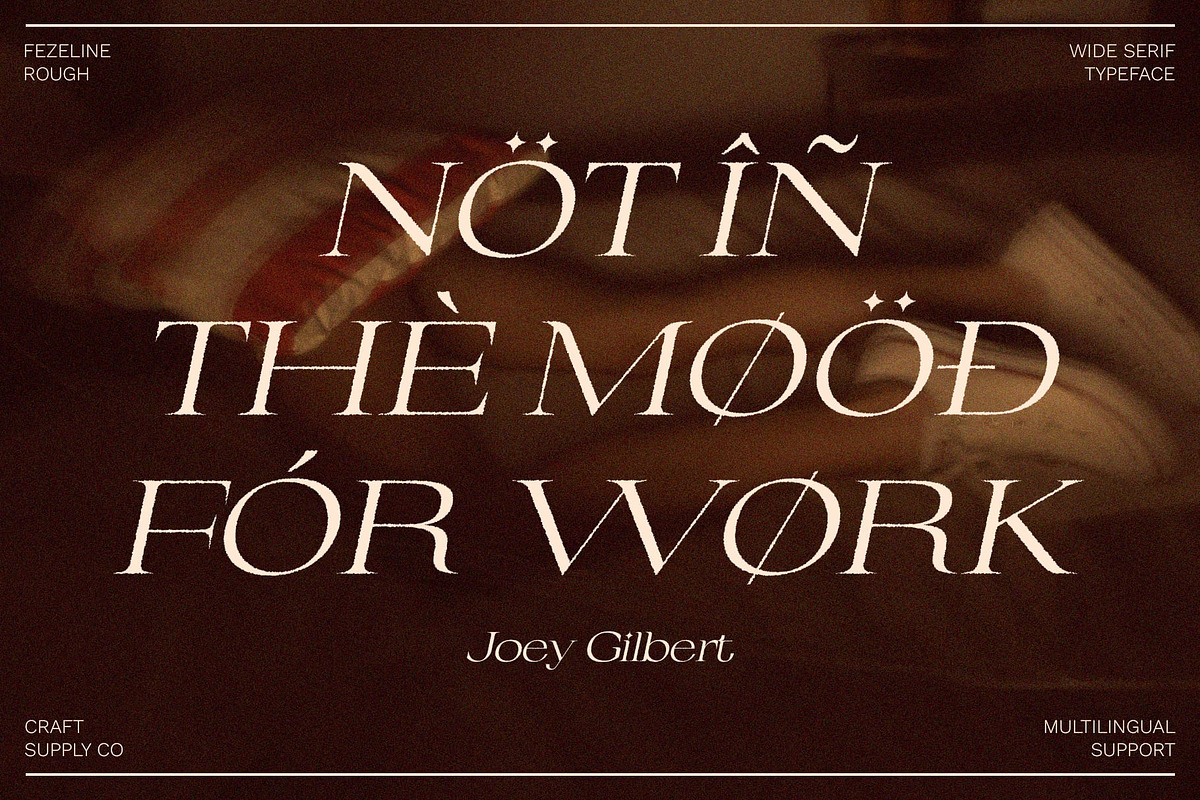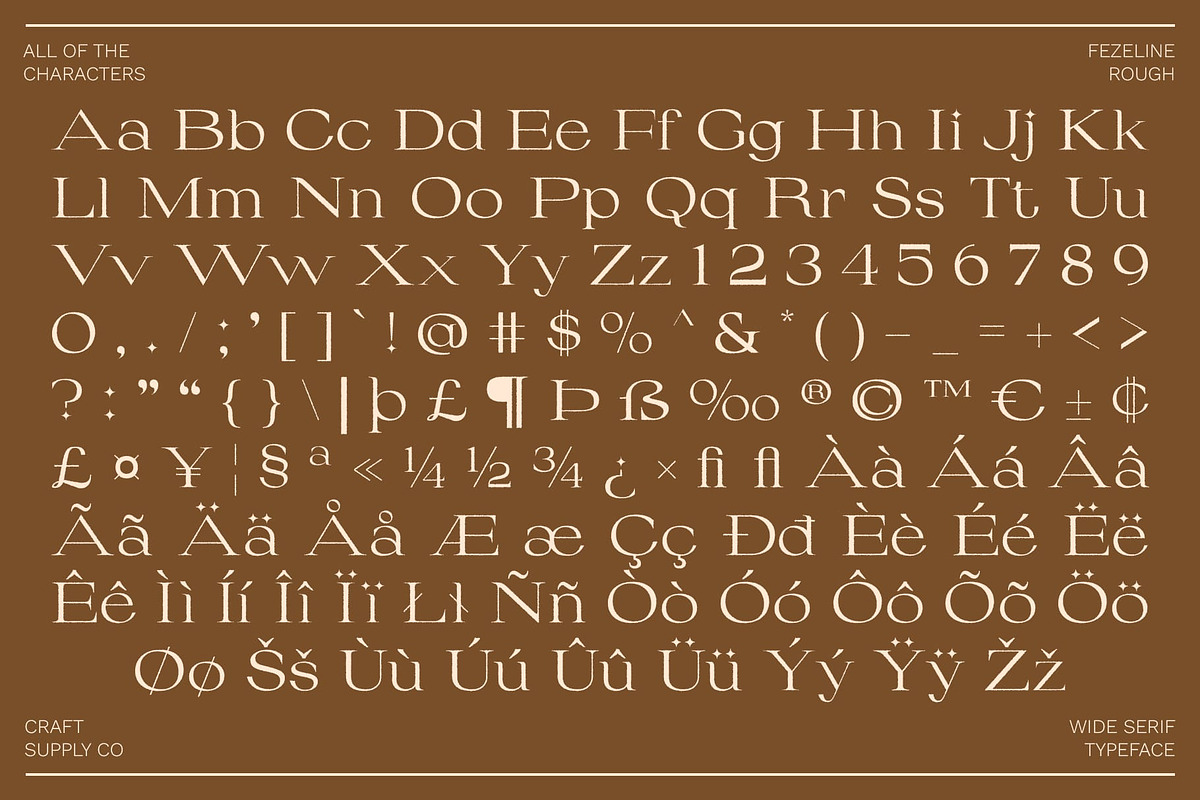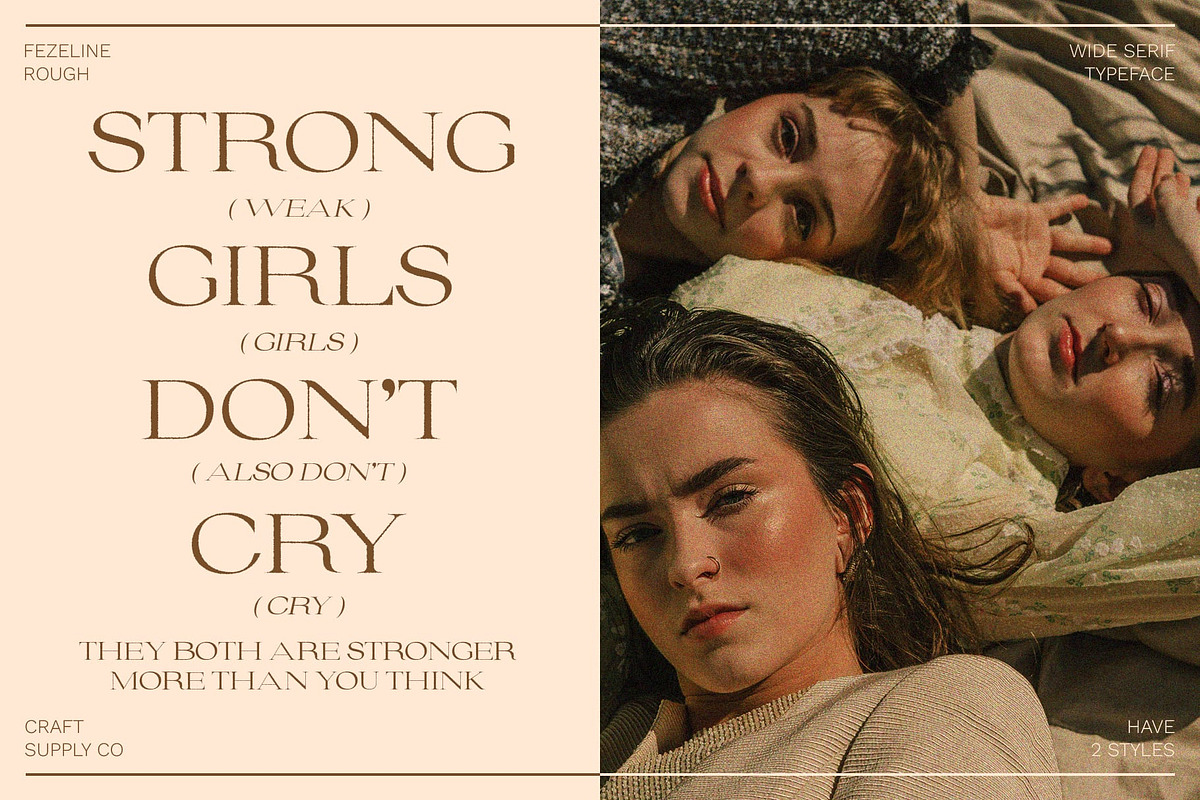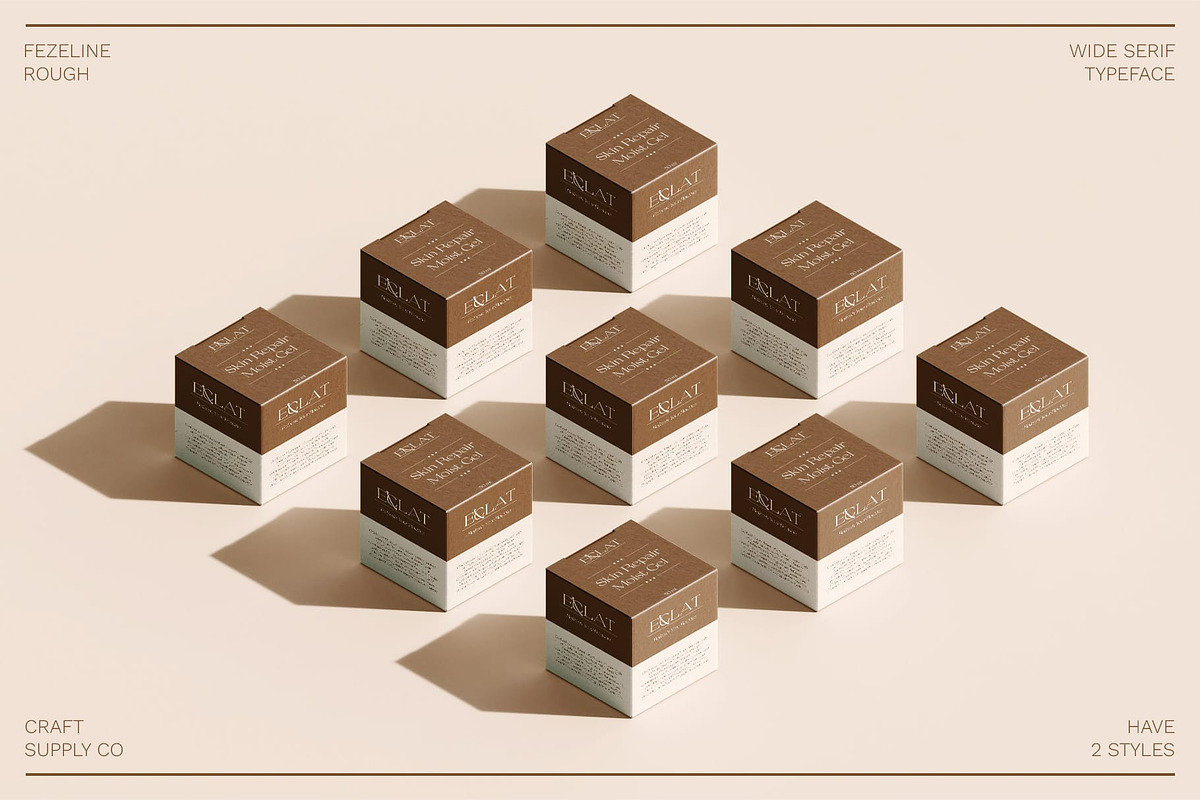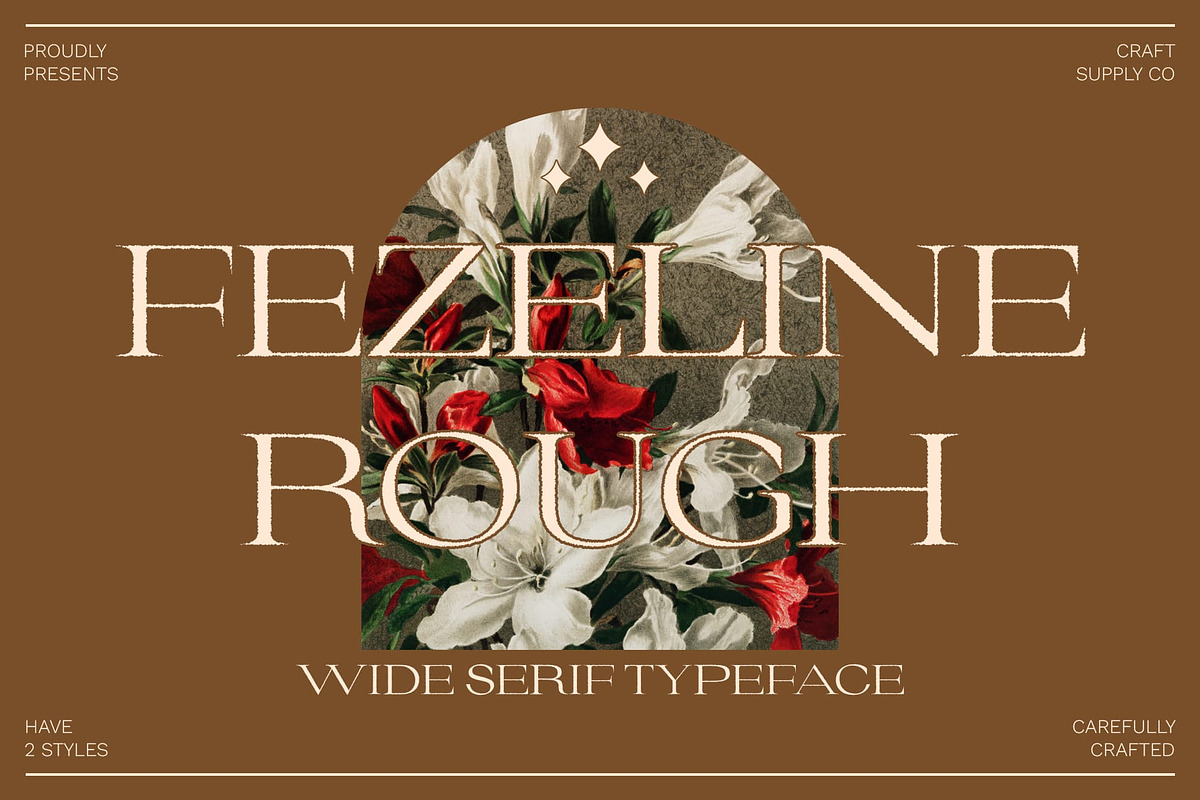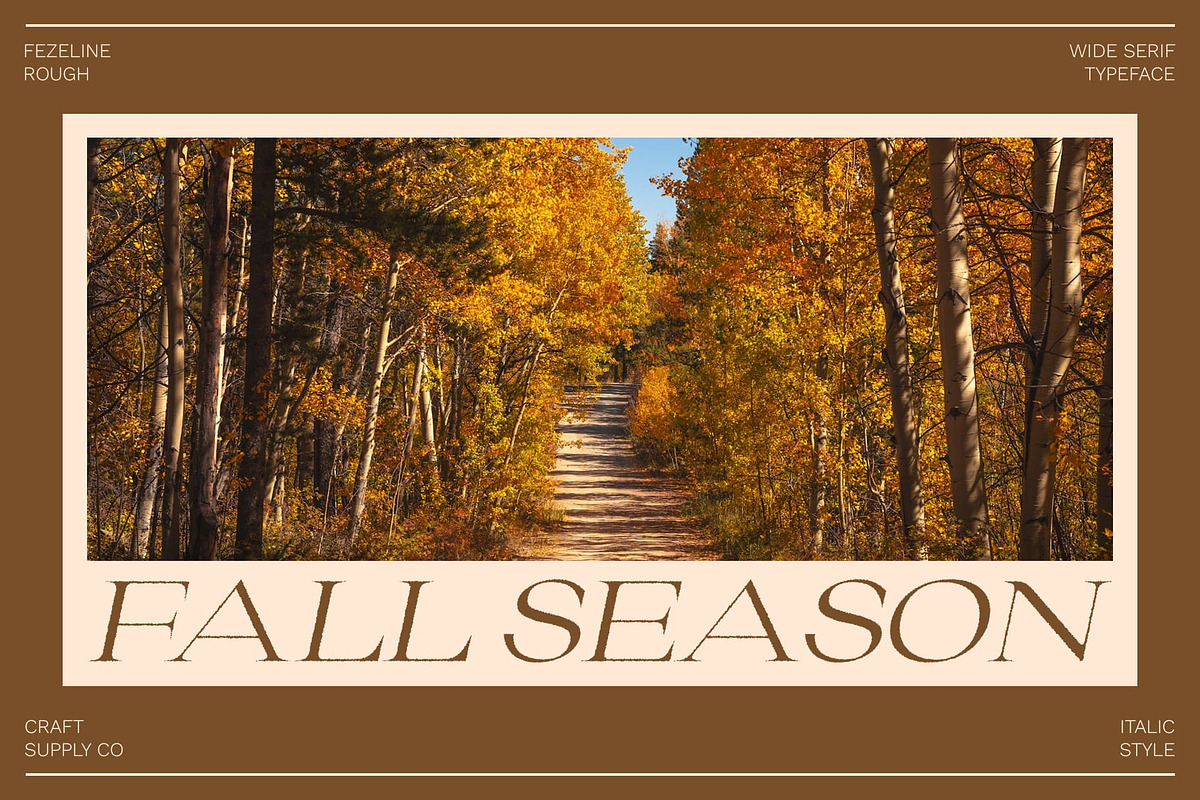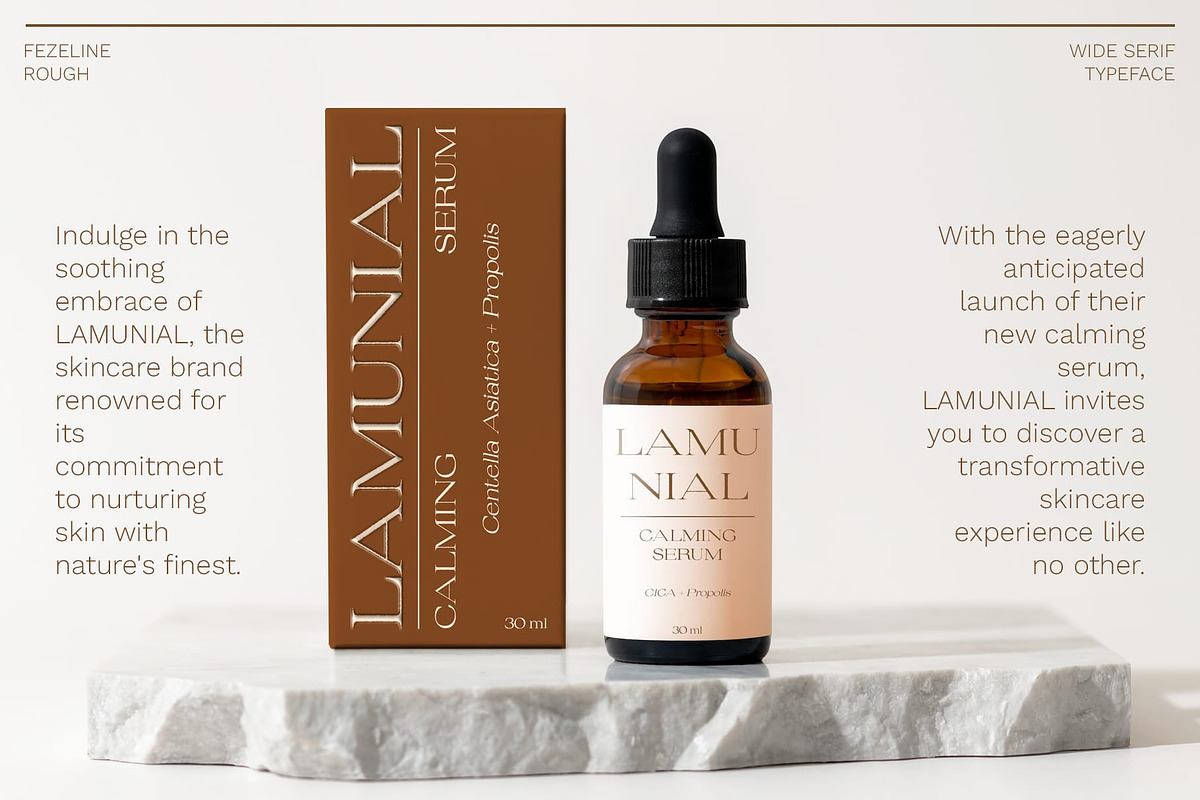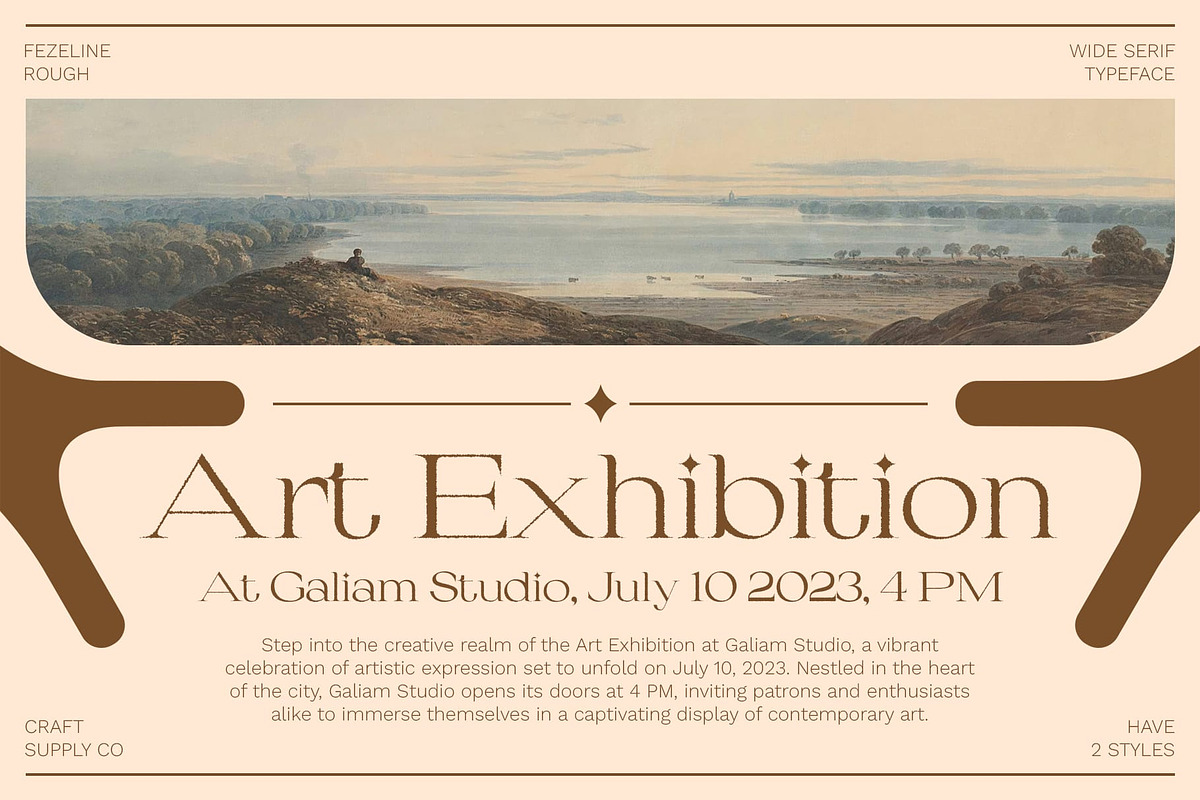
Fezeline Rough
Fezeline Rough: Modern Wide Serif Font
Elegant Sophistication with a Rugged Charm Fezeline Rough is a modern wide serif font that masterfully combines contemporary sophistication with a hint of rugged charm. Its broad letterforms and refined serifs provide a balanced and distinguished look, making it ideal for high-end projects.
Unique Texture and Tactile Appeal The rough effect of Fezeline Rough adds a unique, tactile element to the font, setting it apart from more traditional serif fonts. This texture introduces a touch of character and depth, enhancing the visual interest of your designs.
Perfect for High-End Branding and Editorial Layouts Ideal for branding, high-end editorial layouts, and stylish packaging, Fezeline Rough brings a distinguished yet approachable feel to your projects. Whether you’re creating luxurious branding materials, sophisticated editorial spreads, or elegant packaging, this font enhances your designs with its unique blend of elegance and rugged charm.
- Fezeline Rough Regular
- Fezeline Rough Italic